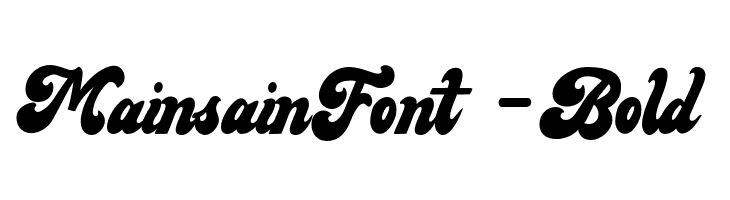
A bold, flowing script font with interconnected characters and decorative flourishes.
A bold, flowing script font with elegant curves and smooth connections.